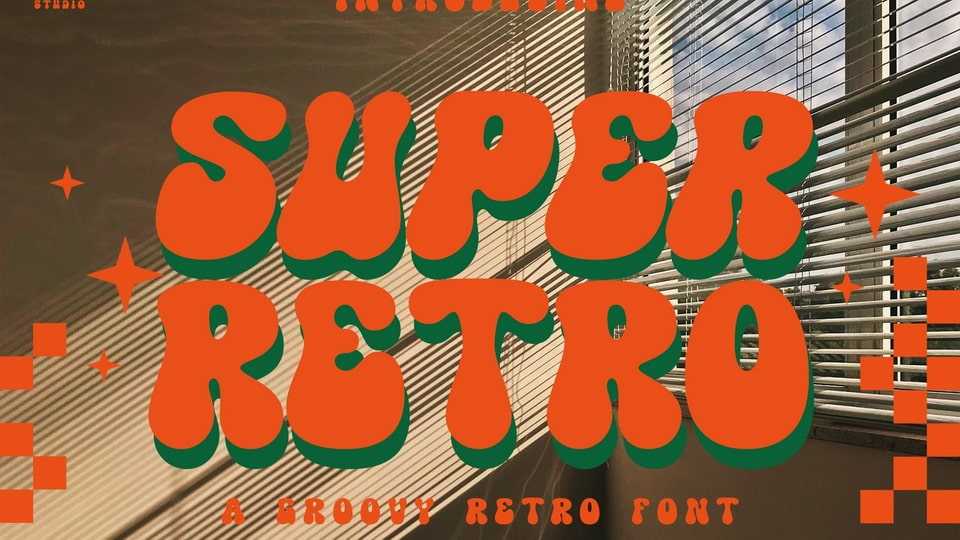
Download Super Retro font, a display typeface that offers a classic groovy retro style with a unique hand-drawn sketch touch and draws inspiration from the retro era.